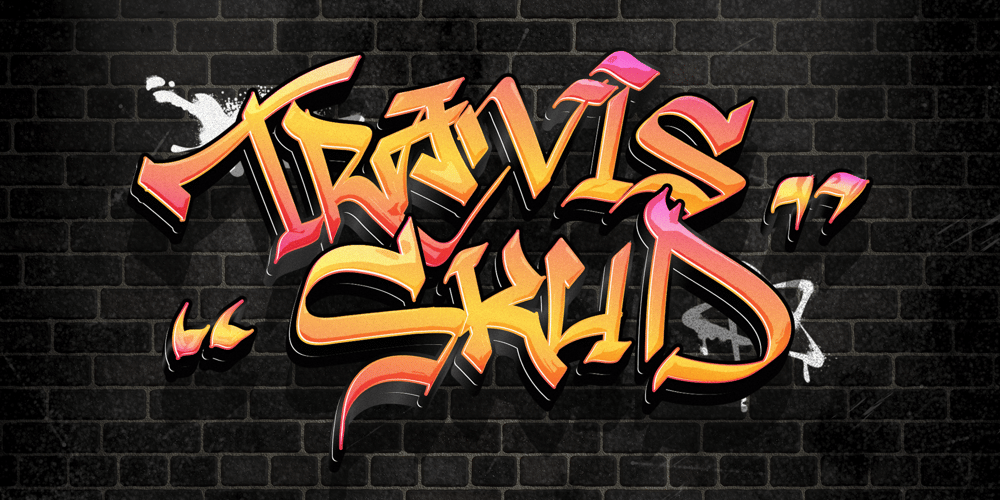
Travis Skud Font Family was designed by Virgiawan Listanto and published by Inviline. Travis Skud contains 1 styles and family package options. Graffiti typefaces capture the vibrant energy of urban art, characterized by bold strokes, dynamic shapes, and expressive styles. Often used to convey street culture, these fonts infuse designs with creativity, attitude, and youthfulness